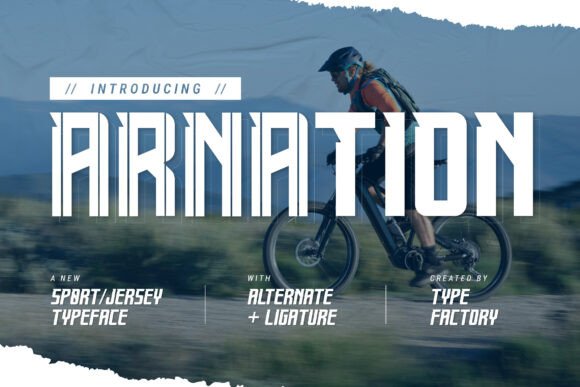
Introducing Arnation Font: The Ultimate Choice for Sports Branding and Team Spirit
Are you looking for a font that can bring dynamic impact and team spirit to your projects? Look no further than Arnation Font. Designed specifically for sports branding, Arnation is a bold and energetic sport jersey typeface that is perfect for creating stunning jersey numbers, team logos, event posters, and athletic apparel.
What Makes Arnation Font Stand Out?
Arnation Font is designed with strong geometric shapes, sharp angles, and athletic proportions that give it a confident and powerful presence. Its clean lines and bold design make it easy to read from a distance, while still conveying a sense of power and motion. Whether you’re designing for a sports team or creating bold merchandise, Arnation brings the game-day vibe to your typography.
One of the key features that sets Arnation apart from other fonts is its unique blend of geometric and athletic design elements. The font’s strong geometric shapes provide a solid foundation, while the sharp angles and athletic proportions add a sense of dynamism and energy. This makes Arnation perfect for sports branding, where a bold and confident presence is essential.
The Perfect Font for Sports Branding
Arnation Font is specifically designed for sports branding, making it the perfect choice for teams, leagues, and events. Its bold and energetic design ensures that your brand stands out from the competition, while its clean lines and athletic proportions make it easy to read and recognize.
Whether you’re creating jerseys, team logos, or event posters, Arnation Font is the perfect choice. Its confident presence and dynamic design make it perfect for sports branding, and its versatility ensures that it can be used across a wide range of applications.
Some of the key applications for Arnation Font include:
- Sports jerseys and team apparel
- Team logos and branding
- Event posters and flyers
- Athletic apparel and merchandise
Why Choose Arnation Font?
There are many reasons why Arnation Font is the perfect choice for sports branding and team spirit. Here are just a few:
- Bold and Energetic Design: Arnation Font has a bold and energetic design that is perfect for sports branding and team spirit.
- Clean Lines and Athletic Proportions: The font’s clean lines and athletic proportions make it easy to read and recognize, even from a distance.
- Versatility: Arnation Font is versatile and can be used across a wide range of applications, from jerseys and team logos to event posters and athletic apparel.
- Dynamic Impact: The font’s dynamic design ensures that your brand stands out from the competition and makes a lasting impression.
- Use in Sports Branding: The font is specifically designed for sports branding, making it perfect for teams, leagues, and events.
Arnation Font is a bold and energetic sport jersey typeface that is perfect for sports branding, jersey numbers, team logos, event posters, and athletic apparel. Its strong geometric shapes, sharp angles, and athletic proportions make it a confident and powerful presence, while its clean lines and dynamic design ensure that your brand stands out from the competition.
Whether you’re designing for a sports team or creating bold merchandise, Arnation Font brings the game-day vibe to your typography. So why wait? Try Arnation Font today and see the dynamic impact it can have on your projects.
- What is Arnation Font? Arnation Font is a bold and energetic sport jersey typeface designed for sports branding, jersey numbers, team logos, event posters, and athletic apparel.
- What makes Arnation Font unique? Arnation Font is unique due to its strong geometric shapes, sharp angles, and athletic proportions, which give it a confident and powerful presence.